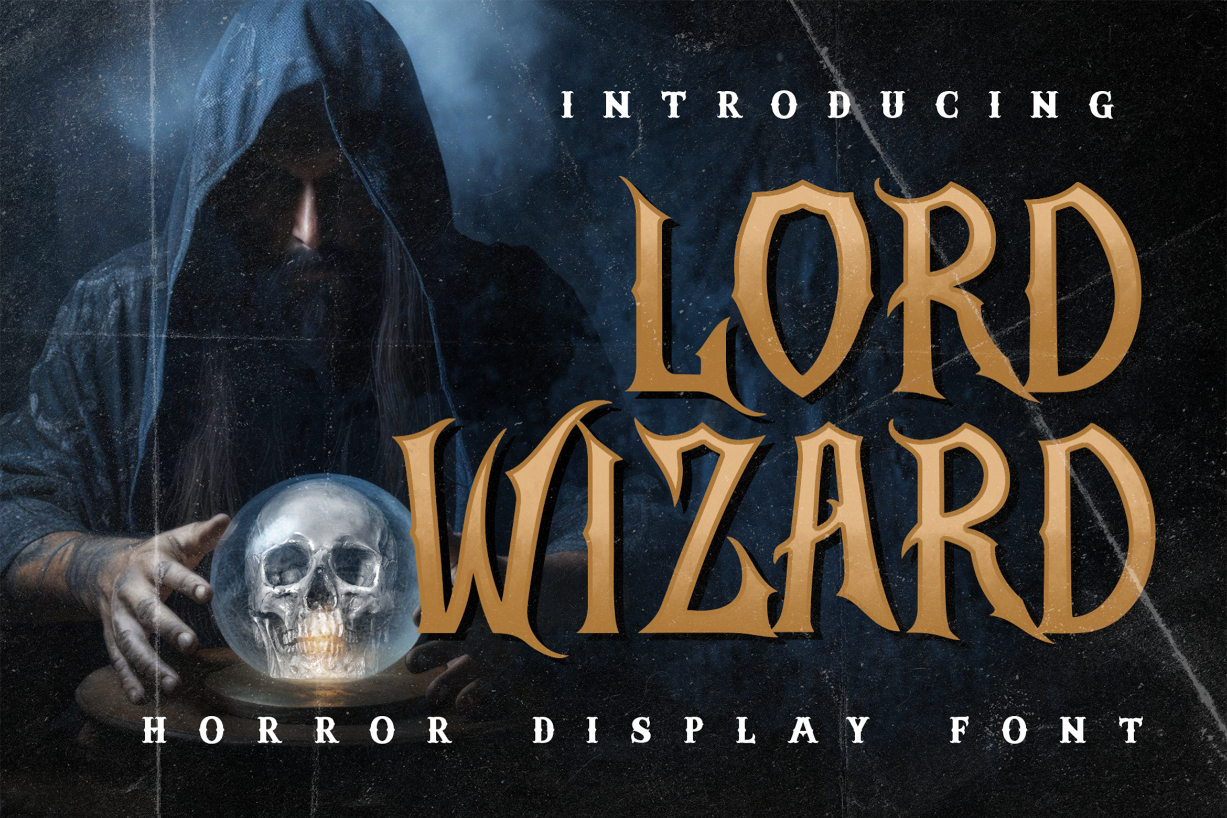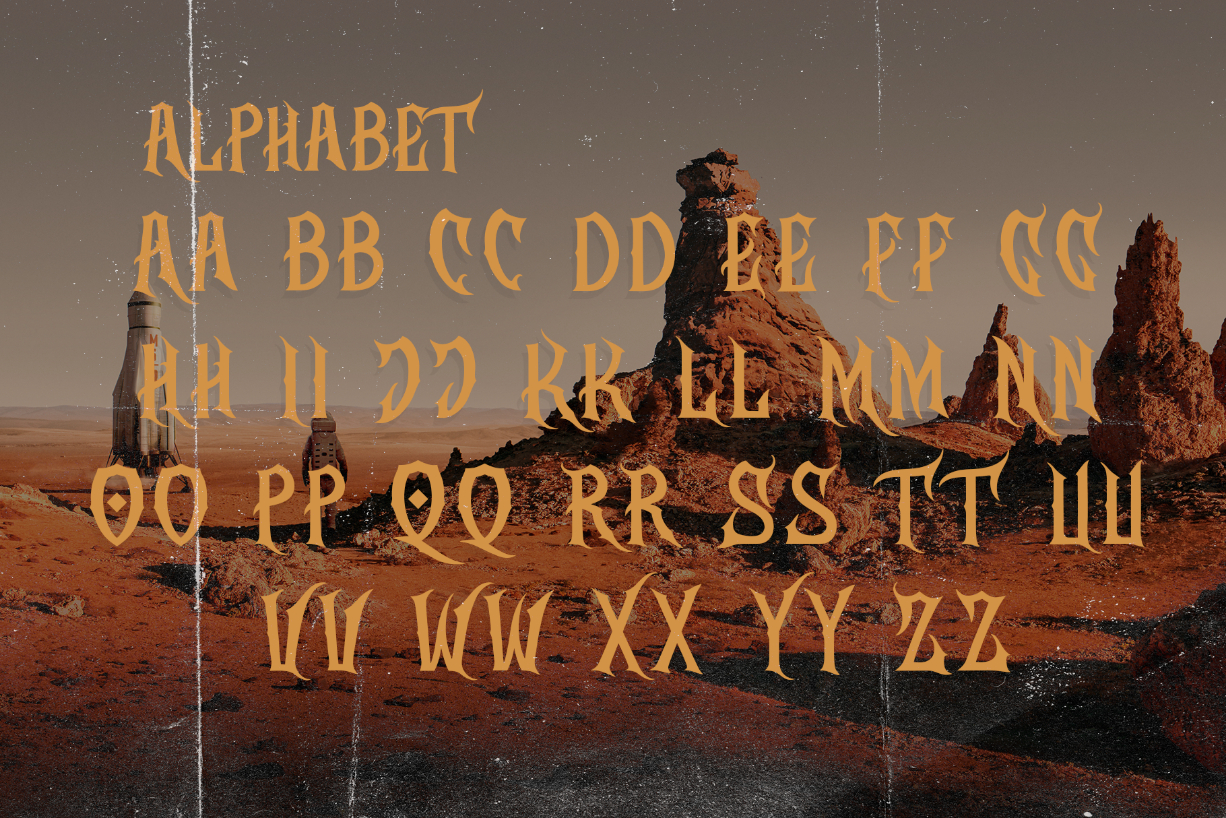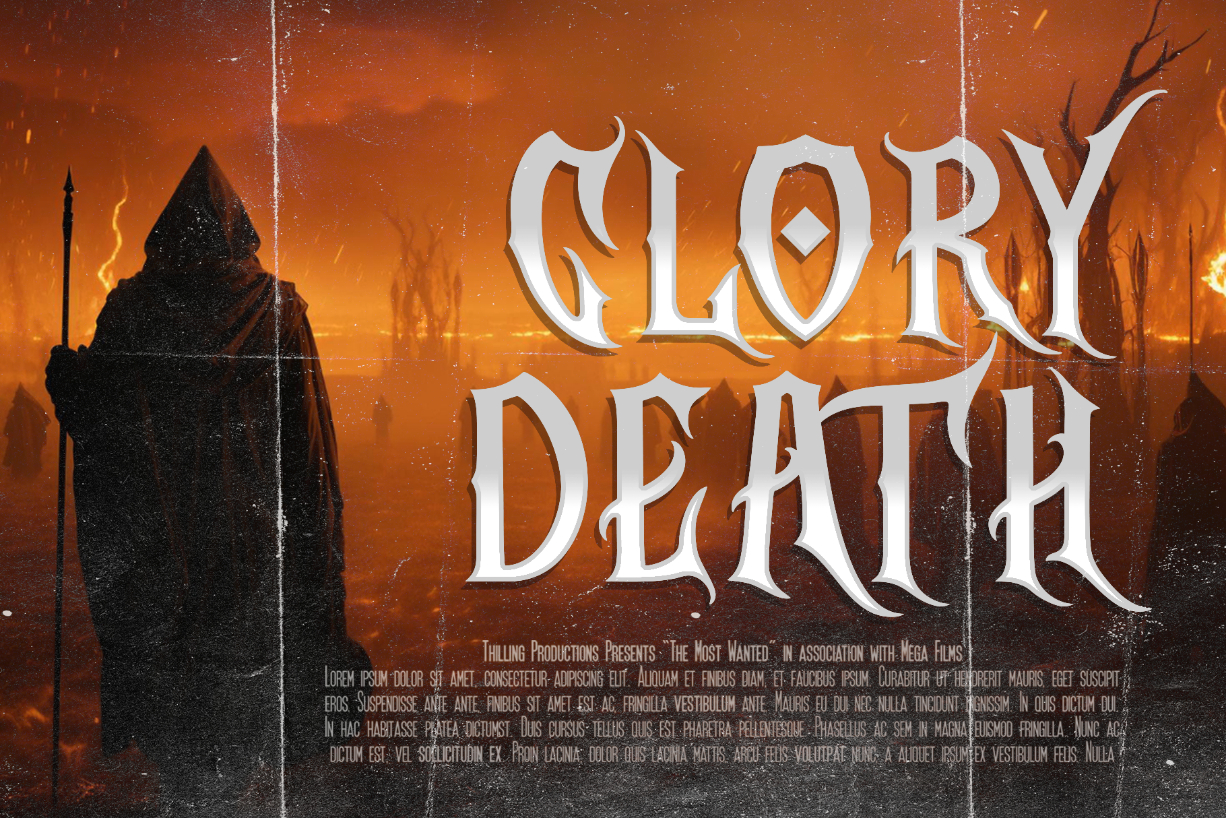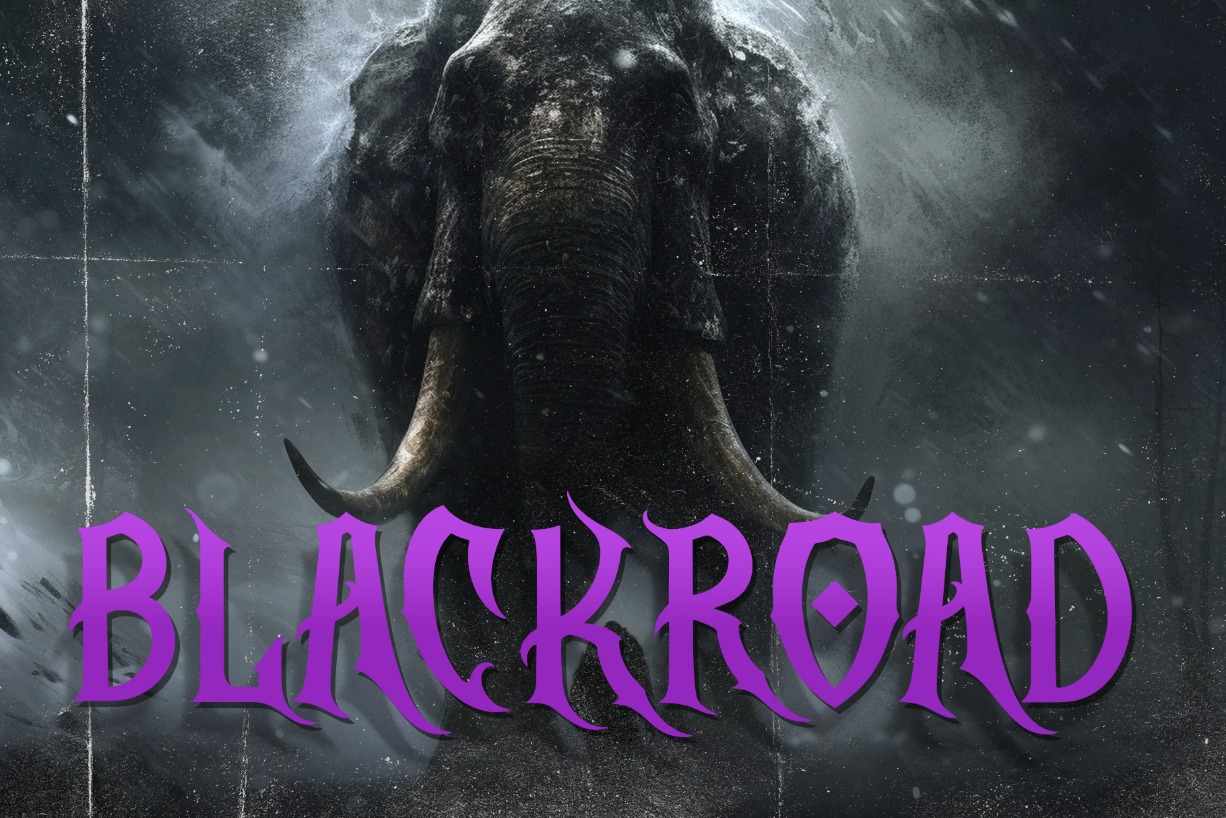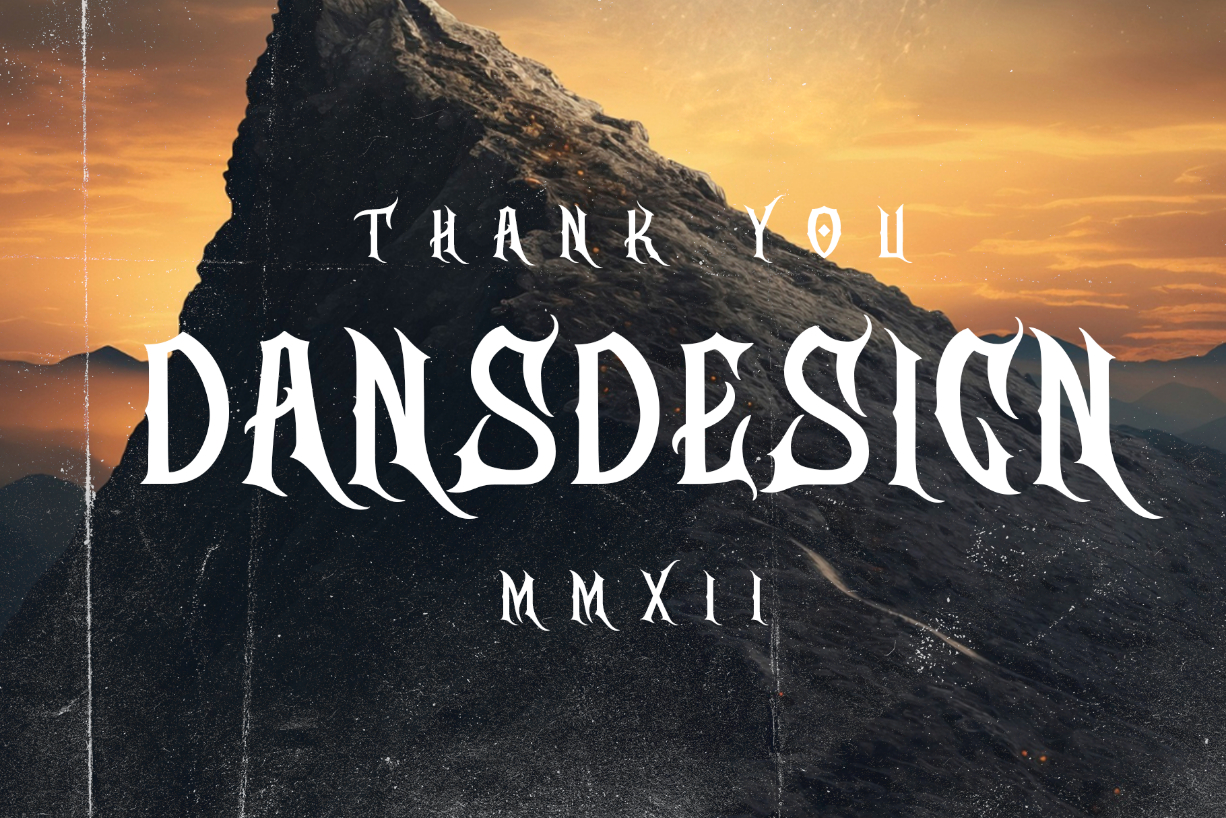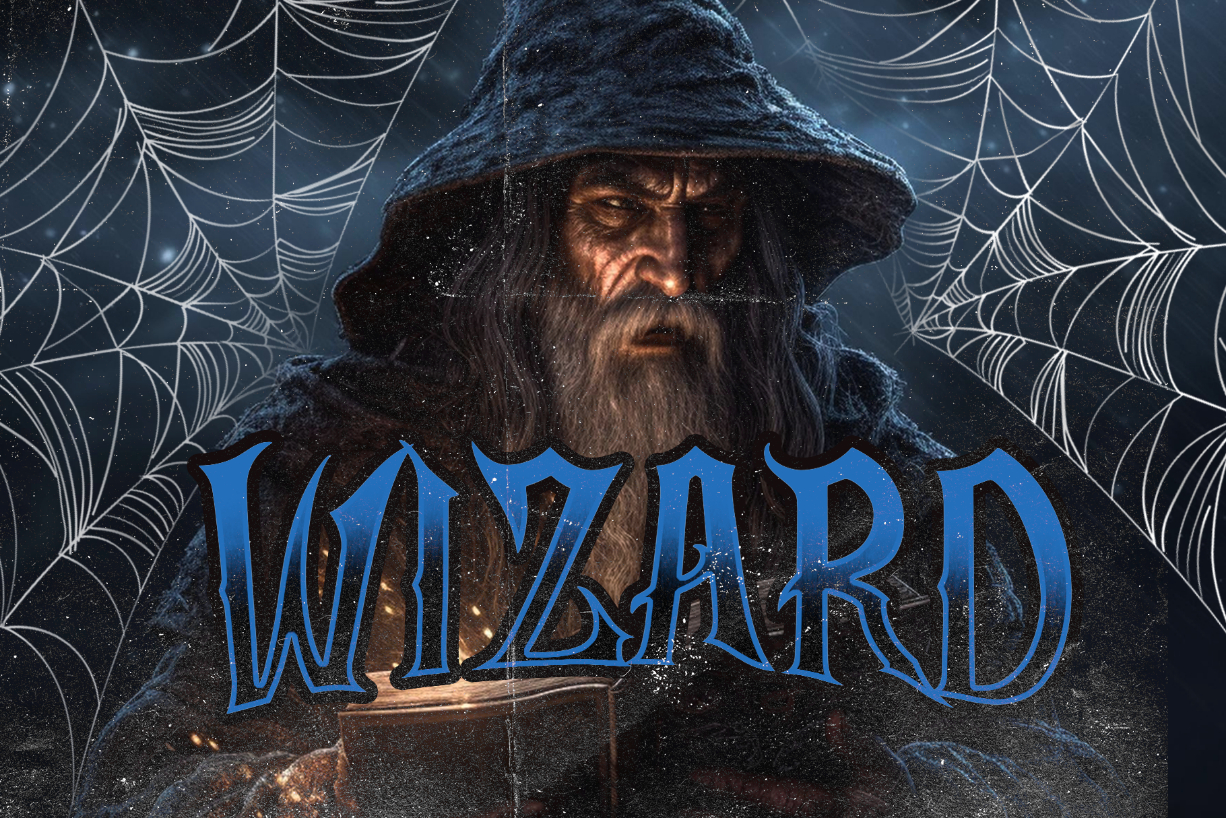
Lord Wizard Font
About Lord Wizard Font
Lord Wizard Metal Horror Font a distinct, highly detailed, and chic Blackletter font. It would make a great choice for exquisite retro-urban designs, tattoo business branding, logos, vintage designs, and more.